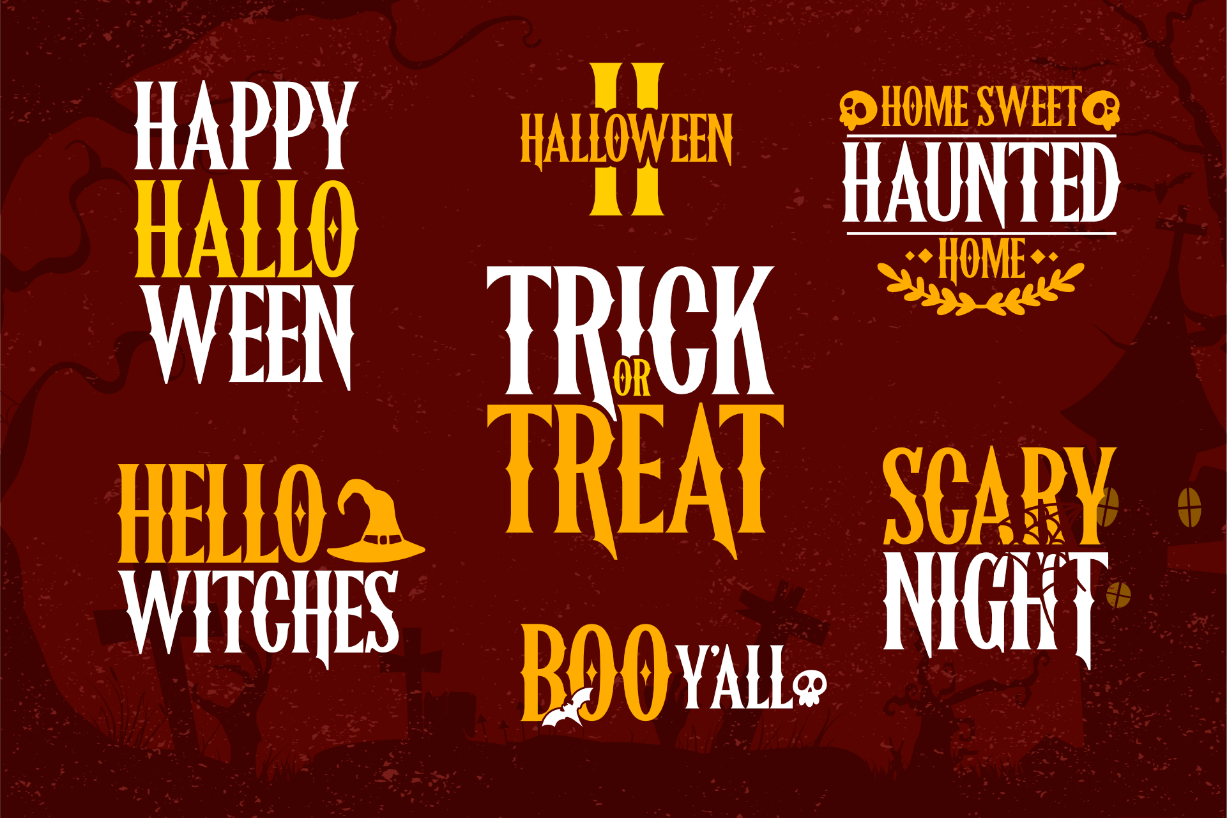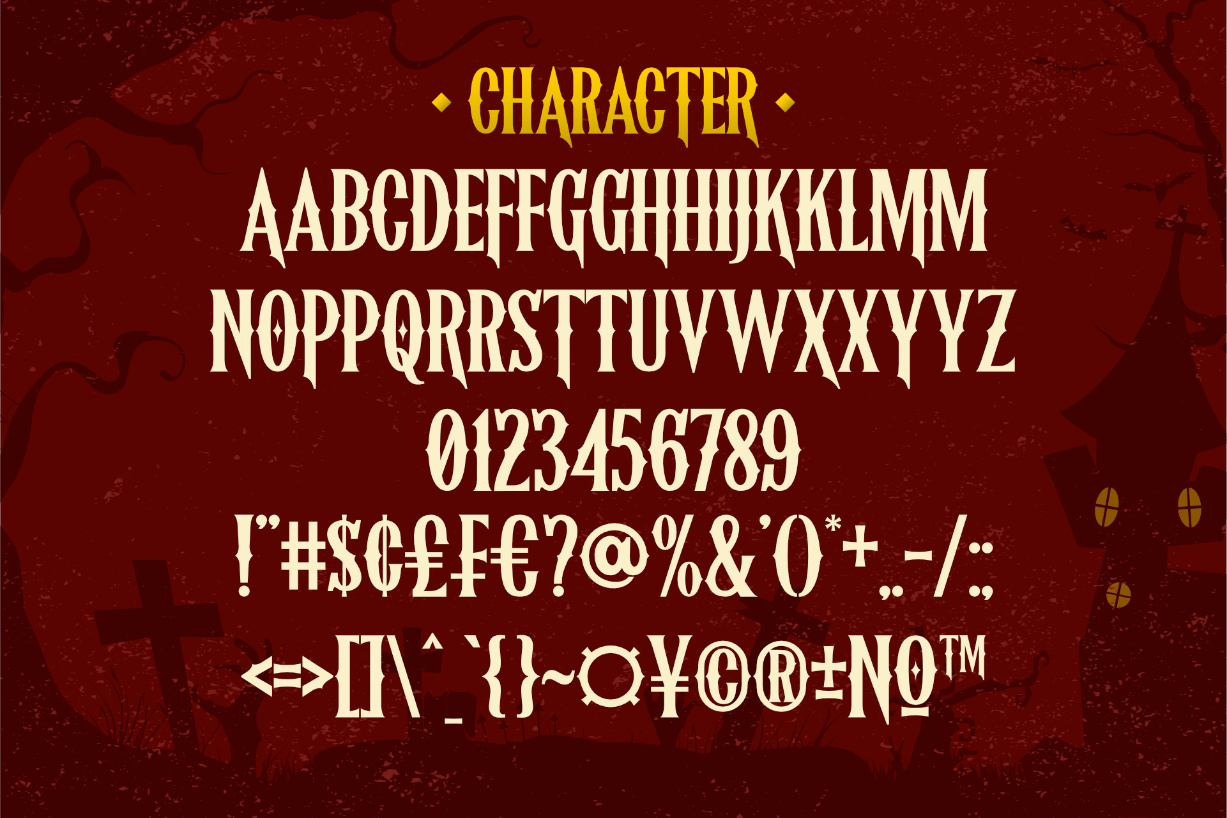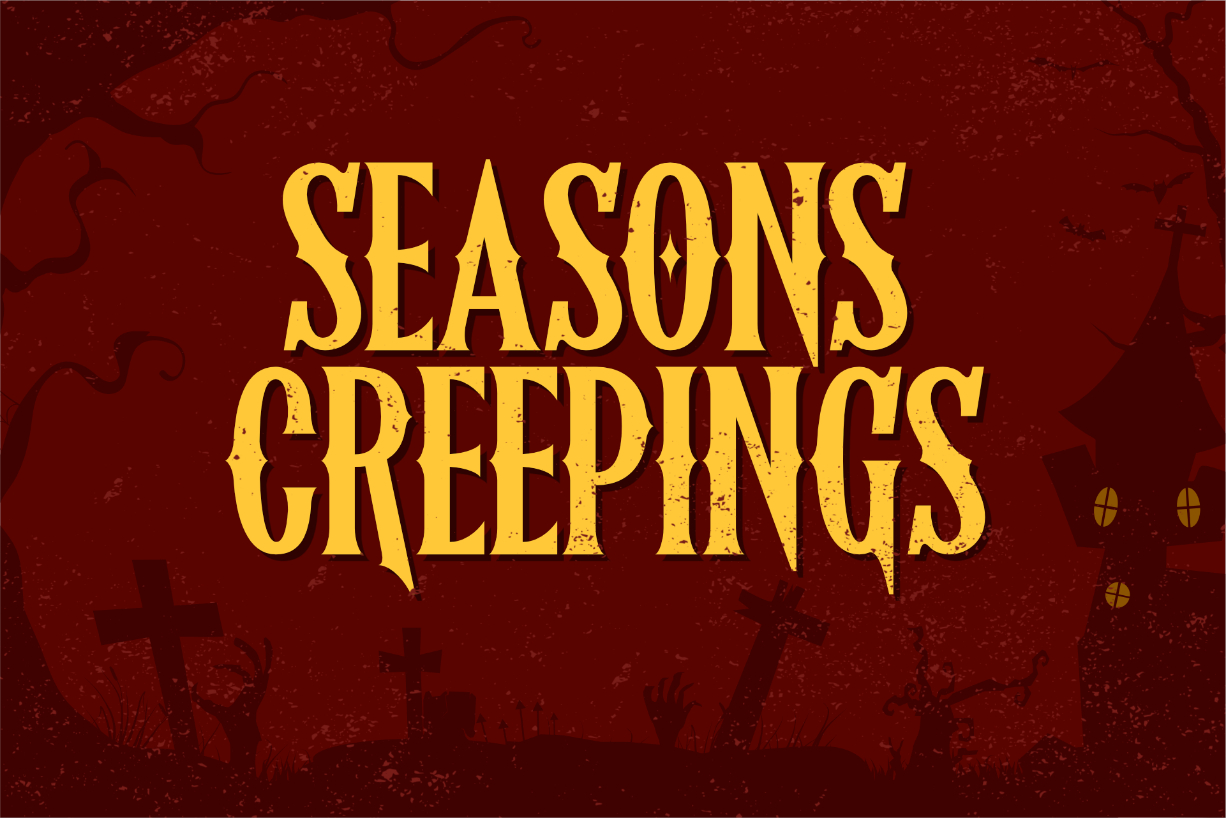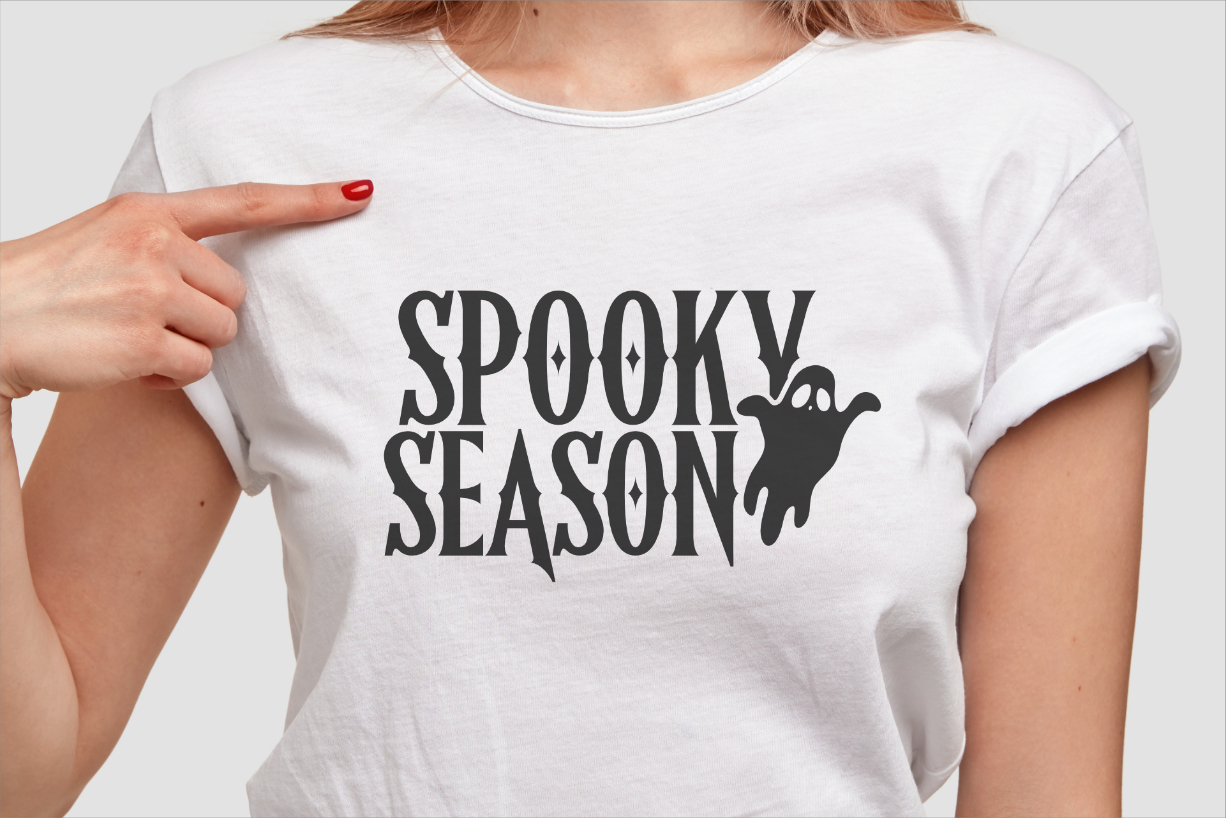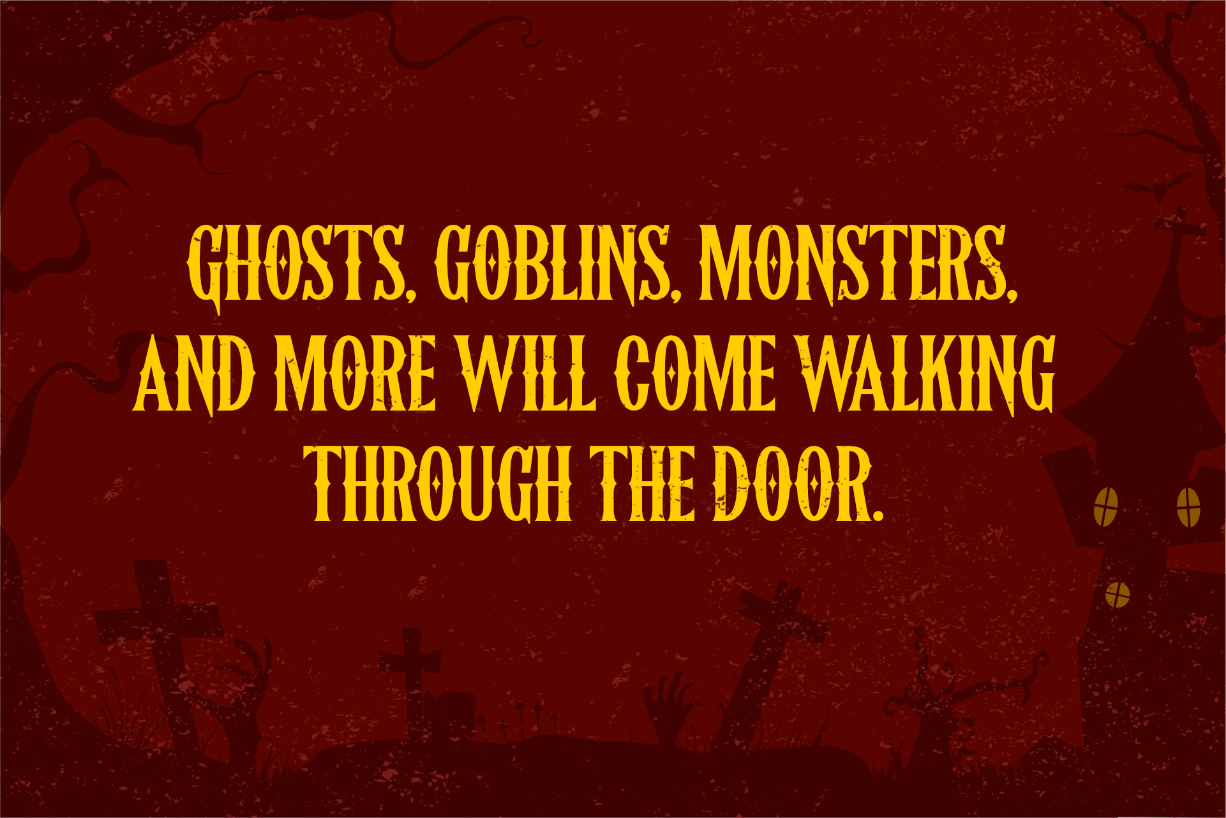
Midnight Halloween Font
About Midnight Halloween Font
Midnight Halloween is a strong and bold blackletter font. It has a spooky feel and is perfectly used for halloween designs and a wide variety of designs. Add it confidently to your projects, and you will love the results.